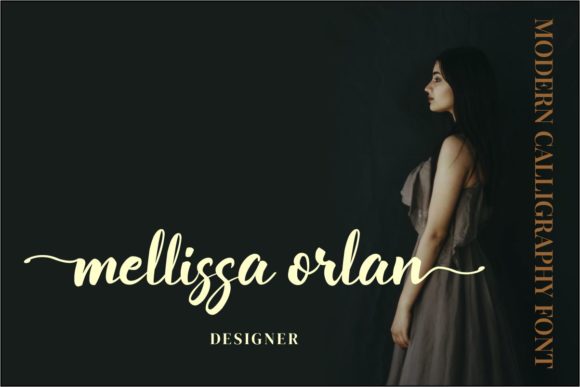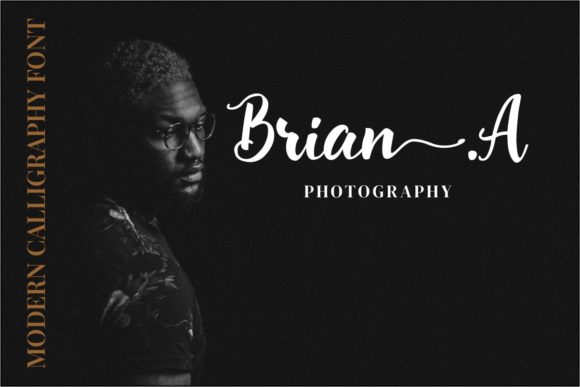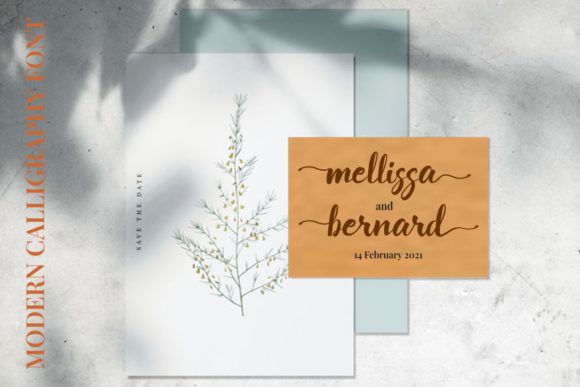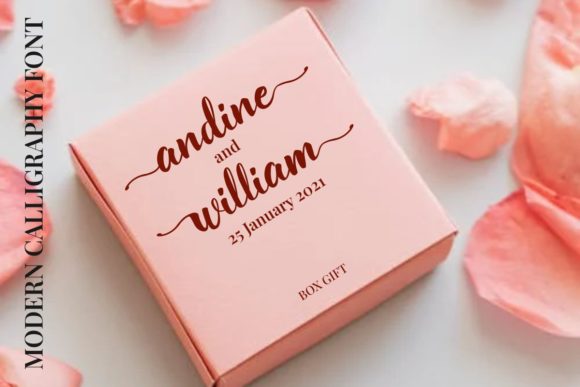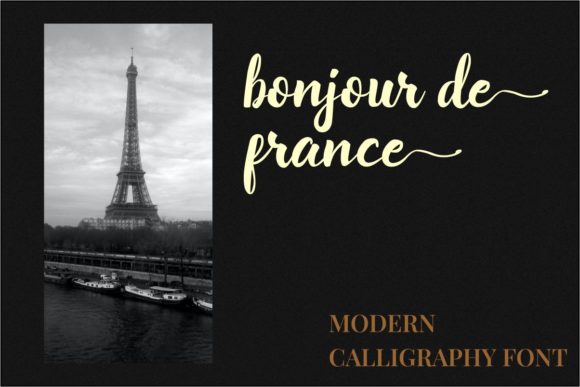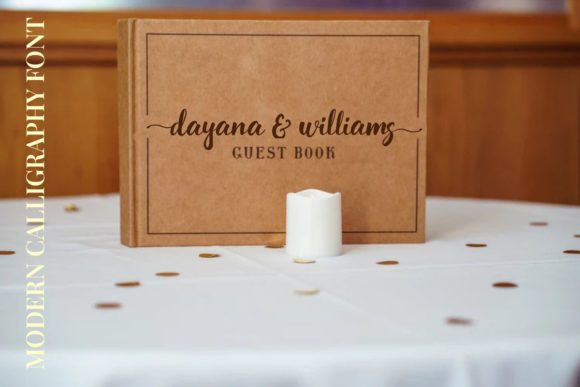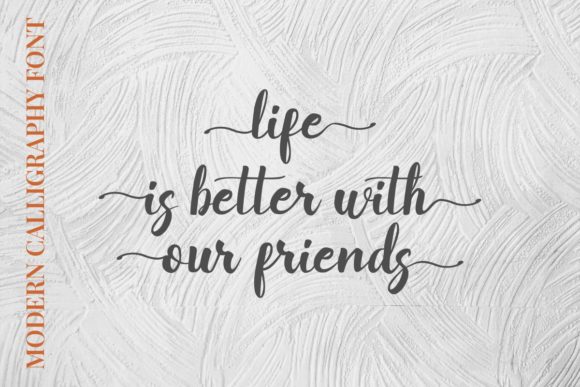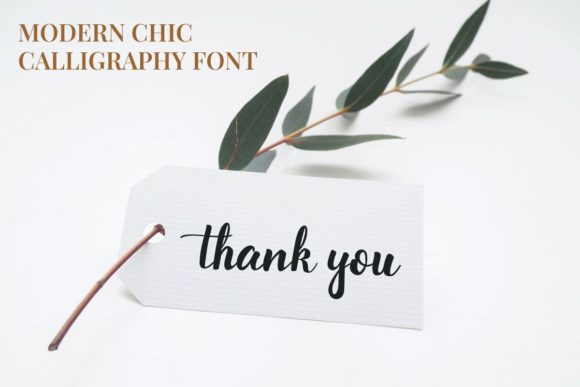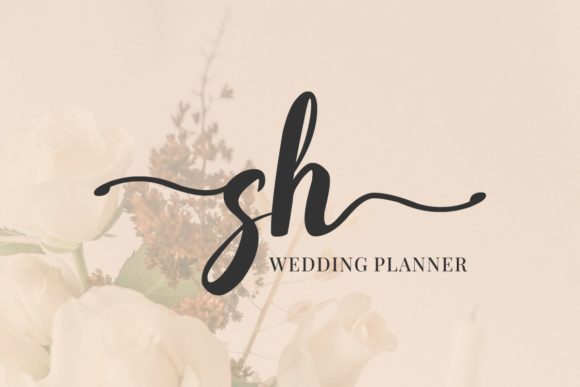
Callissta Font
About Callissta Font
“Callissta” sounds like a beautiful and romantic calligraphy typeface that brings sweetness and elegance to any design. With its characters dancing along the baseline, this font exudes a sense of charm and grace, making it perfect for conveying heartfelt emotions.
By using “Callissta” in your projects, you can create a romantic and sentimental atmosphere. Its calligraphy style adds a personal and intimate touch, making your designs feel more special and cherished.
This font’s casual yet elegant nature allows it to adapt to various design themes. Whether you’re working on wedding invitations, love letters, greeting cards, or any other project that requires a romantic touch, “Callissta” can enhance the overall mood.
With “Callissta,” you have access to a wide range of glyphs and swashes, thanks to its PUA encoding. This feature grants you creative freedom to explore various stylistic variations and decorative elements, making your designs truly unique and personalized.
Incorporate “Callissta” into your designs, and you’ll see how it brings a touch of romance and sweetness, turning your projects into captivating and emotionally resonant creations.
While embracing the sweetness of “Callissta,” remember to maintain readability and legibility. Proper spacing and alignment between letters ensure that the text remains clear and easy to read, preserving the overall elegance of the font.
In conclusion, “Callissta” is a romantic and sweet calligraphy typeface that can add a touch of charm and sentiment to your designs. Embrace its casual, yet elegant touch, and let it be the font that conveys heartfelt emotions and brings beauty to your creations. With “Callissta,” your designs will dance along the lines of love and grace, making them even more special and cherished by your audience.